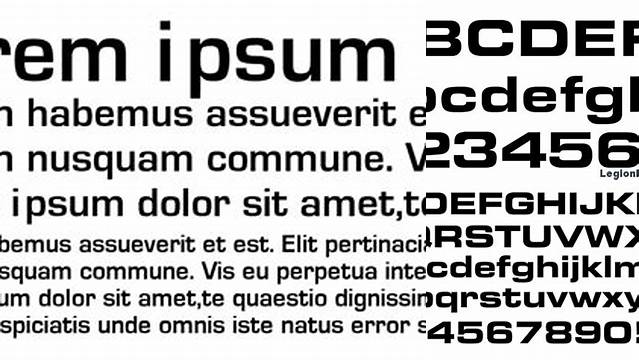
Are you looking for that perfect font to give your designs a modern, futuristic edge? Well, you've probably stumbled upon the Eurostile Bold font, a true classic in the world of typography. This article is your ultimate guide to understanding, downloading, and using Eurostile Bold effectively. We'll dive into its history, explore its characteristics, discuss its best uses, and, most importantly, show you where to find those elusive free downloads. So, buckle up, font enthusiasts, and let's get started!
What is Eurostile Bold?
Let's talk about the Eurostile Bold font. This typeface isn't just any font; it's a piece of design history. Created by the renowned Italian type designer Aldo Novarese in 1962, Eurostile is a geometric sans-serif font that screams modernity and efficiency. Its distinctive rectangular shapes and rounded corners give it a strong, authoritative presence, making it a favorite for logos, headlines, and signage.
Eurostile's design philosophy is rooted in the modernist movement, which emphasized functionality and clarity. Novarese aimed to create a font that was both legible and visually striking, a goal he achieved with resounding success. The font's clean lines and uniform letterforms make it incredibly versatile, suitable for a wide range of applications. Think about the sleek, futuristic look it brings – that’s why it's so popular in tech, architecture, and even science fiction designs. The bold version, in particular, amplifies these qualities, providing extra emphasis and visual impact. Whether you're working on a website, a poster, or a corporate identity, Eurostile Bold can bring a touch of sophistication and a sense of forward-thinking to your project. It's a font that not only looks good but also communicates a message of strength and innovation. That’s why so many designers and businesses keep coming back to it. Its timeless appeal ensures it remains a relevant and powerful tool in the world of typography.
The History and Significance of Eurostile
To truly appreciate the Eurostile Bold font, let’s take a trip down memory lane and explore its rich history and cultural significance. Designed in the early 1960s by Aldo Novarese for the Italian foundry Nebiolo, Eurostile emerged during a time of great technological advancement and a growing fascination with the future. This context heavily influenced its design, which reflects the sleek, geometric aesthetic of the era. Novarese, a master of his craft, sought to create a typeface that embodied modernity and efficiency, and he certainly succeeded. Eurostile's strong, rectangular forms and rounded corners were a radical departure from the more ornate typefaces that were popular at the time. It quickly became a symbol of progress and innovation, making it a perfect fit for industries like technology, transportation, and manufacturing.
Its clean lines and uniform letterforms not only made it highly legible but also visually striking, capturing the spirit of a world moving towards a more streamlined and futuristic aesthetic. One of the key reasons for Eurostile’s enduring appeal is its versatility. It works exceptionally well in a variety of applications, from headlines and signage to body text and corporate branding. The bold version, in particular, adds extra weight and emphasis, making it ideal for situations where you need to make a strong statement. Over the years, Eurostile has been used extensively in countless logos, advertisements, and media productions. You've likely seen it without even realizing it, as it has become ingrained in our visual culture. Its presence in iconic films, television shows, and video games further solidifies its status as a timeless classic. Understanding the history and significance of Eurostile allows you to use it more effectively in your own projects, leveraging its inherent qualities to communicate your message with clarity and impact.
Why Choose Eurostile Bold for Your Projects?
Why should you even consider Eurostile Bold font for your design projects? Well, there are several compelling reasons. First and foremost, its unique aesthetic makes it stand out. Eurostile Bold isn't just another sans-serif font; it has a distinct personality. Its geometric shapes and robust letterforms convey a sense of strength, stability, and modernity. This makes it an excellent choice for brands and projects that want to project an image of confidence and innovation. If you’re aiming for a look that’s both contemporary and professional, Eurostile Bold ticks all the boxes.
Moreover, Eurostile Bold boasts exceptional legibility. Despite its strong character, the font remains highly readable in various sizes and contexts. This is crucial, especially for projects where clarity is paramount, such as signage, websites, and print materials. You want your message to be easily understood, and Eurostile Bold ensures that your text doesn’t get lost in translation. Another advantage of Eurostile Bold is its versatility. It pairs well with a variety of other fonts, allowing you to create visually appealing and balanced designs. You can use it for headlines and subheadings, combining it with a simpler font for body text to achieve a harmonious look. This flexibility makes it a valuable asset in any designer's toolkit. Think about the impact you want to make. If you’re working on a project that needs to convey a sense of authority and cutting-edge design, Eurostile Bold is your go-to font. It has a timeless quality that ensures your designs will look fresh and relevant for years to come. Whether you’re designing a logo, a website, or a marketing campaign, Eurostile Bold can elevate your work and help you make a lasting impression.
Key Characteristics and Design Principles
To truly harness the power of Eurostile Bold font, it's essential to understand its key characteristics and the design principles that underpin its creation. This font is more than just a collection of letters; it’s a carefully crafted piece of visual communication. One of the most striking features of Eurostile Bold is its geometric construction. The font is built upon a foundation of clean, geometric shapes, primarily rectangles and squares, with rounded corners softening the edges. This gives it a mechanical, almost industrial feel, which is a nod to the modernist design movement that influenced its creation. The uniform stroke weight throughout the letters adds to its sense of consistency and balance, making it highly legible and visually appealing.
The bold weight of this font amplifies its inherent strength and presence. It makes the letters appear solid and substantial, commanding attention without being overly aggressive. This makes it perfect for headlines, titles, and logos where you want to make a strong statement. However, it's important to use it judiciously, as too much bold text can overwhelm a design. Another key characteristic of Eurostile Bold is its monospace-like appearance. While it's not technically a monospace font, the letters have a relatively uniform width, which contributes to its clean and orderly look. This makes it particularly well-suited for applications where space is limited or consistency is crucial, such as in signage or user interfaces. When using Eurostile Bold, consider the overall design principles of your project. It pairs well with other sans-serif fonts that have a simpler, more understated design. This creates a visual hierarchy, allowing Eurostile Bold to stand out while maintaining a harmonious balance. It also works effectively with contrasting design elements, such as bold colors or striking imagery, to create a dynamic and engaging composition. Understanding these characteristics and design principles will enable you to use Eurostile Bold more effectively, ensuring that your designs are both visually appealing and functionally sound.
In conclusion, the Eurostile Bold font is a timeless classic that continues to be a favorite among designers for its modern, geometric aesthetic. Its strong, authoritative presence makes it an excellent choice for a wide range of projects, from logos and headlines to signage and websites. While finding free downloads of Eurostile Bold can be tricky due to licensing restrictions, understanding your options and respecting font legalities is crucial. By exploring free alternatives, considering font subscription services, and always downloading from reputable sources, you can ensure that you're using fonts legally and ethically. When using Eurostile Bold, remember to consider its context, pair it thoughtfully with other fonts, and pay attention to spacing and kerning. By following these tips, you can harness the power of Eurostile Bold to create designs that are both visually striking and highly effective. So, go ahead, experiment with this iconic font, and let it bring a touch of modernity and sophistication to your projects. Whether you're a seasoned designer or just starting out, Eurostile Bold is a valuable tool to have in your font arsenal. Its enduring appeal and versatility ensure that it will remain a relevant and powerful typeface for years to come. Happy designing, guys!